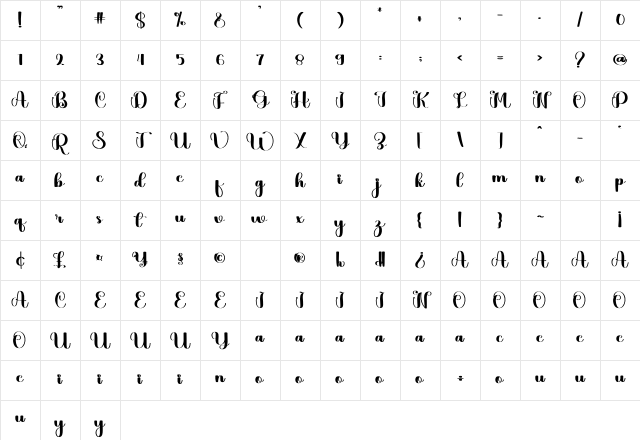
Wake Regular
Design Context for Wake
Wake is a composed and adaptable typeface that performs quietly and consistently across a wide range of design contexts.
Pro Tip: Use Wake in both headline and body roles to test its range before committing to a single application.